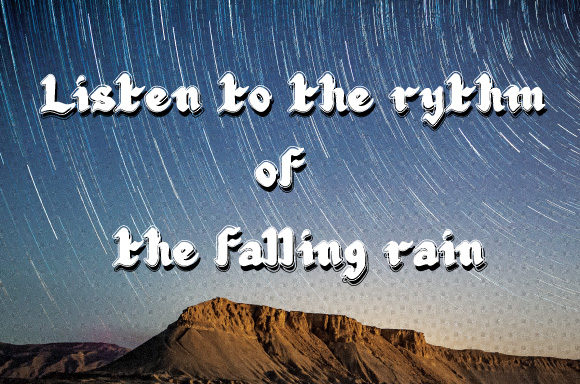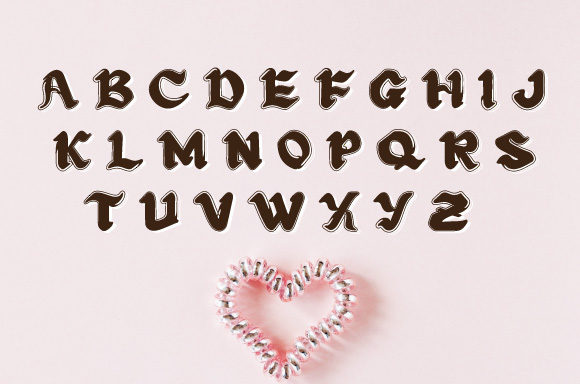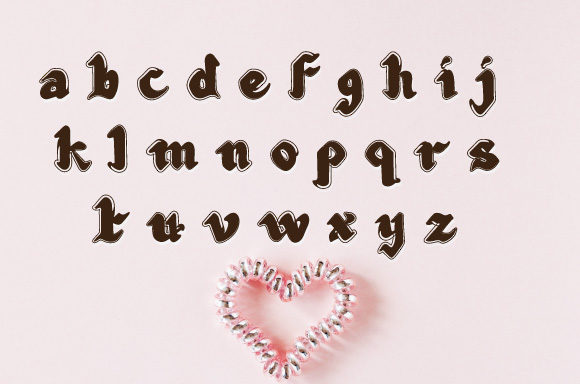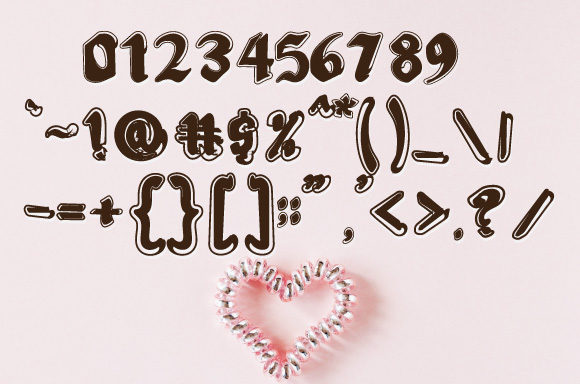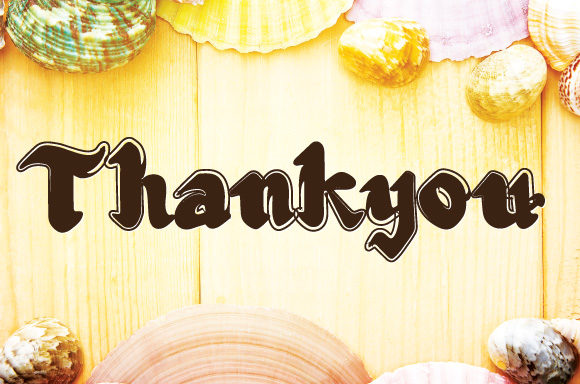
Craft Design Font: Elevate Your Creations with Style and Uniqueness
In the world of design, fonts play a crucial role in conveying messages, evoking emotions, and setting the tone for a brand or project. When it comes to creating visually stunning and impactful designs, having the right font is essential. This is where Craft Design Font comes in – a stylish and unique display font that can elevate any creation. In this article, we’ll explore the features, benefits, and uses of Craft Design Font, and why it’s a must-have for designers and crafters.
What is Craft Design Font?
Craft Design Font is a modern and elegant display font designed to add a touch of sophistication and personality to any design project. Its unique and stylish lettering makes it perfect for a wide range of applications, from branding and advertising to packaging and digital media. Whether you’re a professional designer or a crafter, this font is sure to become an incredibly valuable asset to your font library.
Key Features of Craft Design Font
- Unique and Stylish Lettering: Craft Design Font boasts a distinctive and eye-catching lettering style that sets it apart from other fonts.
- Highly Versatile: This font can be used for a variety of design projects, including logos, headings, titles, and more.
- Easily Readable: Despite its unique style, Craft Design Font remains highly legible, making it perfect for use in both digital and print media.
- Scalable: This font is designed to look great at any size, from small captions to large headlines.
Benefits of Using Craft Design Font
- Adds Personality to Your Designs: With Craft Design Font, you can add a touch of personality and style to your designs, setting them apart from the competition.
- Enhances Brand Identity: This font can help you create a consistent brand image and voice, making it easier to establish a strong brand identity.
- Increases Engagement: The unique and stylish lettering of Craft Design Font is sure to grab attention and keep your audience engaged.
Use Cases for Craft Design Font
Craft Design Font is an incredibly versatile font that can be used in a wide range of design projects, including:
- Branding and Logo Design: Create a unique and memorable brand identity with Craft Design Font.
- Advertising and Marketing Materials: Use this font to create eye-catching ads, brochures, and other marketing materials.
- Packaging Design: Add a touch of style and sophistication to your product packaging with Craft Design Font.
- Digital Media: Use this font to create engaging and interactive digital content, such as website headers, social media graphics, and more.
In conclusion, Craft Design Font is a stylish and unique display font that can elevate any design project. With its highly versatile and easily readable lettering, this font is perfect for designers and crafters looking to add a touch of personality and style to their creations. Whether you’re working on a branding project, advertising campaign, or packaging design, Craft Design Font is sure to become an incredibly valuable asset to your font library.